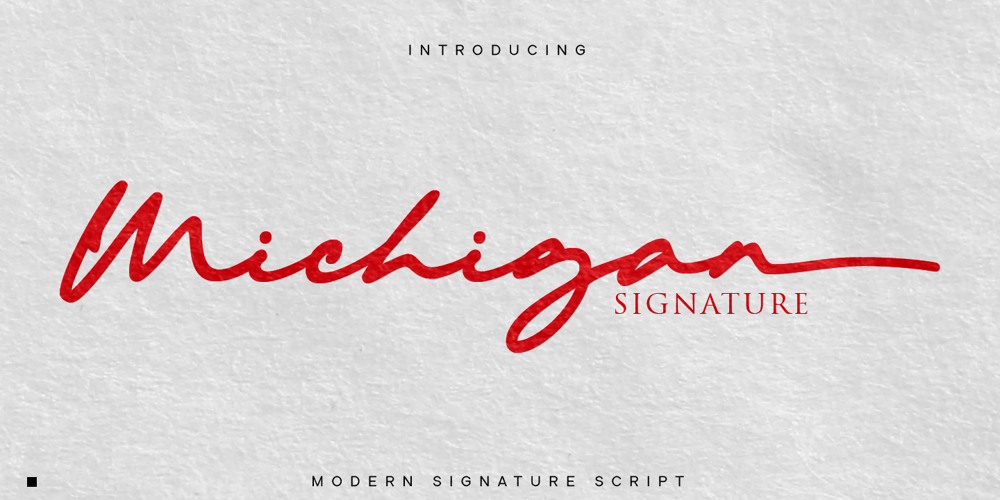
Michigan Signature Font Family was designed by Muhammad Ridha Agusni, Siti Saribanon Nurjannah and published by Cititype. Michigan Signature contains 1 styles and family package options. Michigan Signature, is a monoline Calligraphy script font, the font looks slightly lower in a constant direction. Like making a quick signature, firm and strong decisions.feature 78 ligatures Support languages: Western Europe, Central / Eastern Europe, Baltic, Turkish, Romanian Lowercase beginning and ending swashes (titling and swash alternates) Alternates glyph This font is very elegant for your digital signature. Likewise for the brand (logotype).Its natural ligature makes this font great for writing quotes as well as the unique message text.This is a signature font that deserves a collection because Michigan Signature suits everyone.young and old, natural or elegant, it’s up to you to package it.Thanks